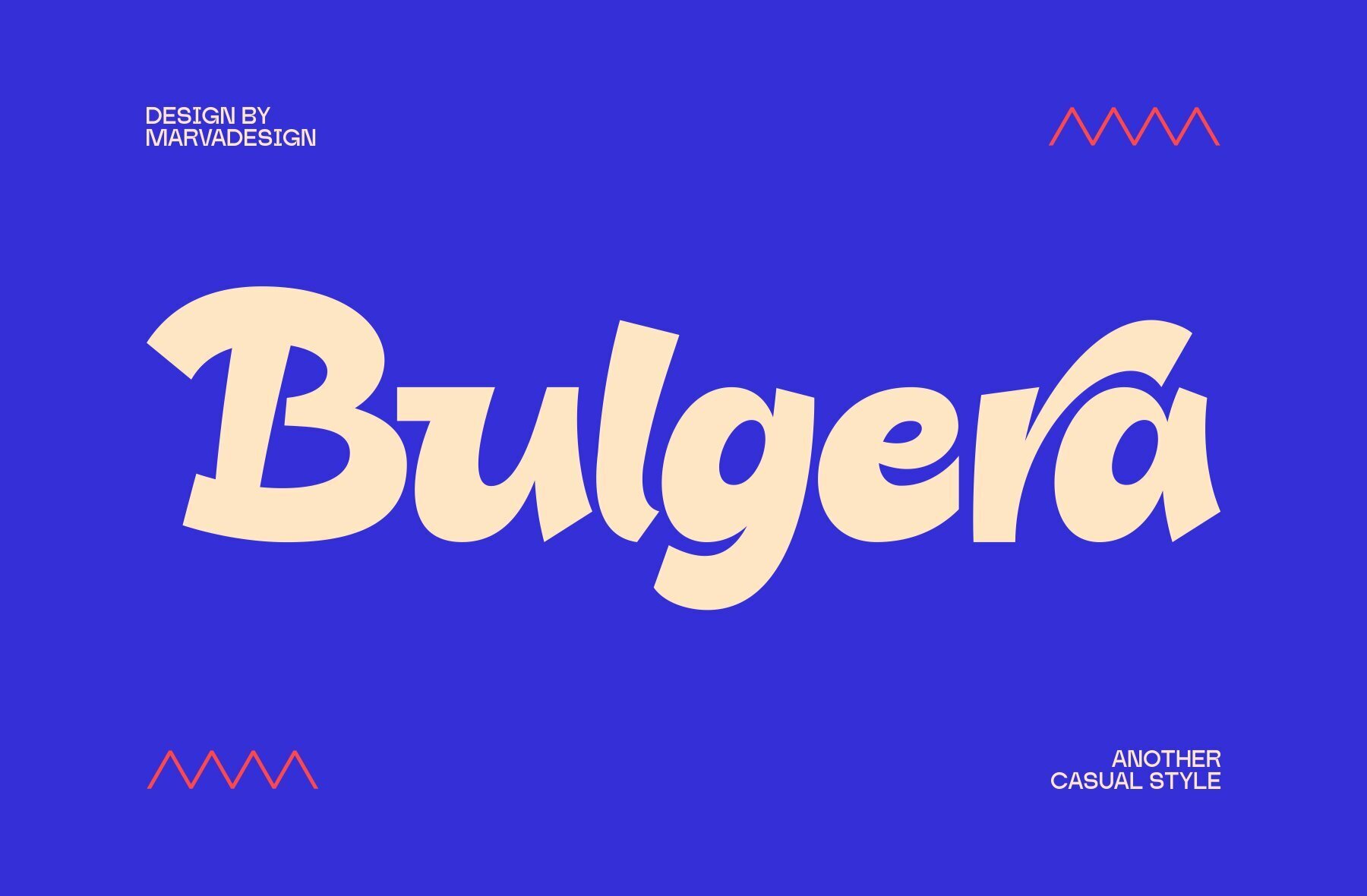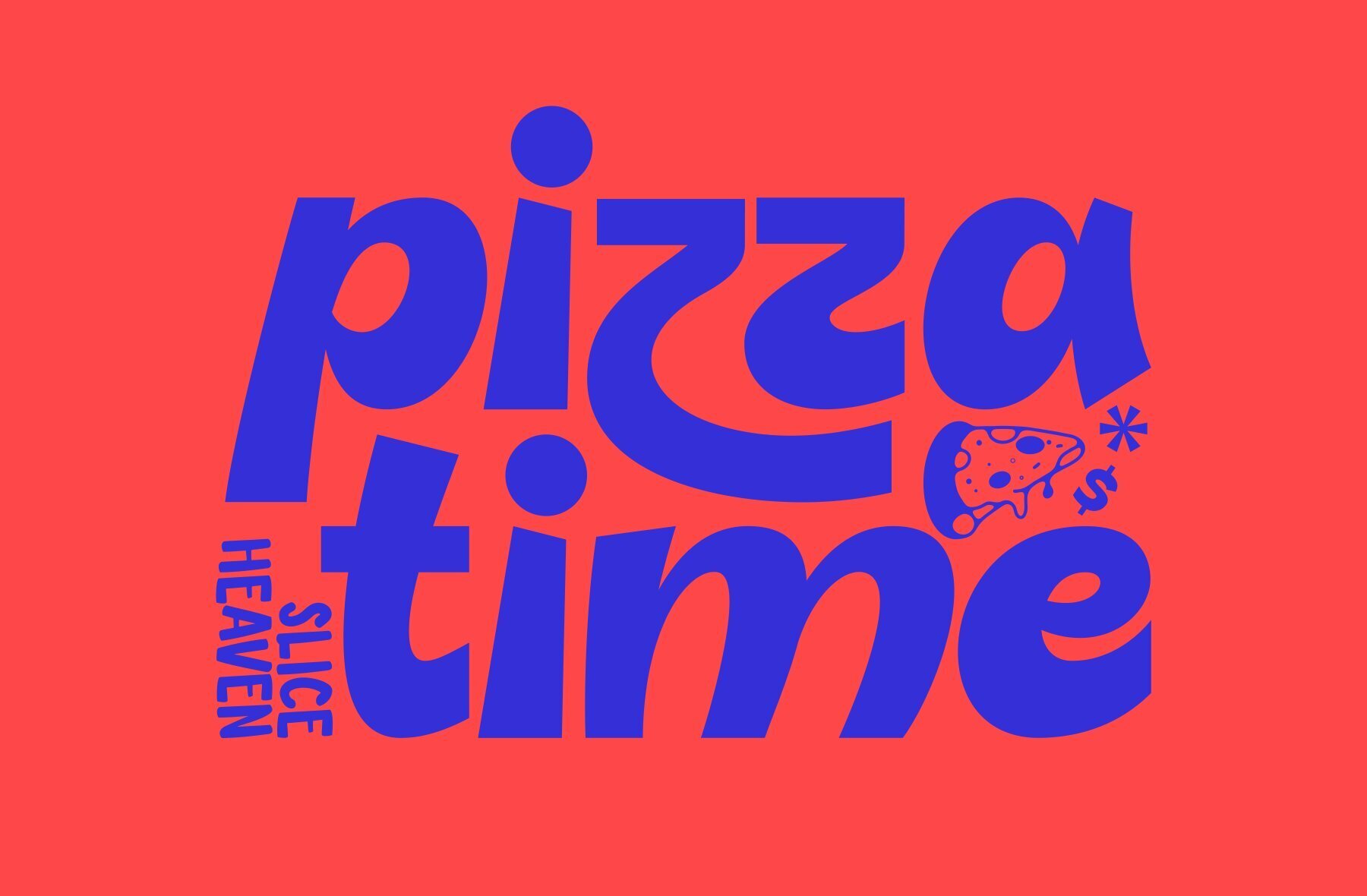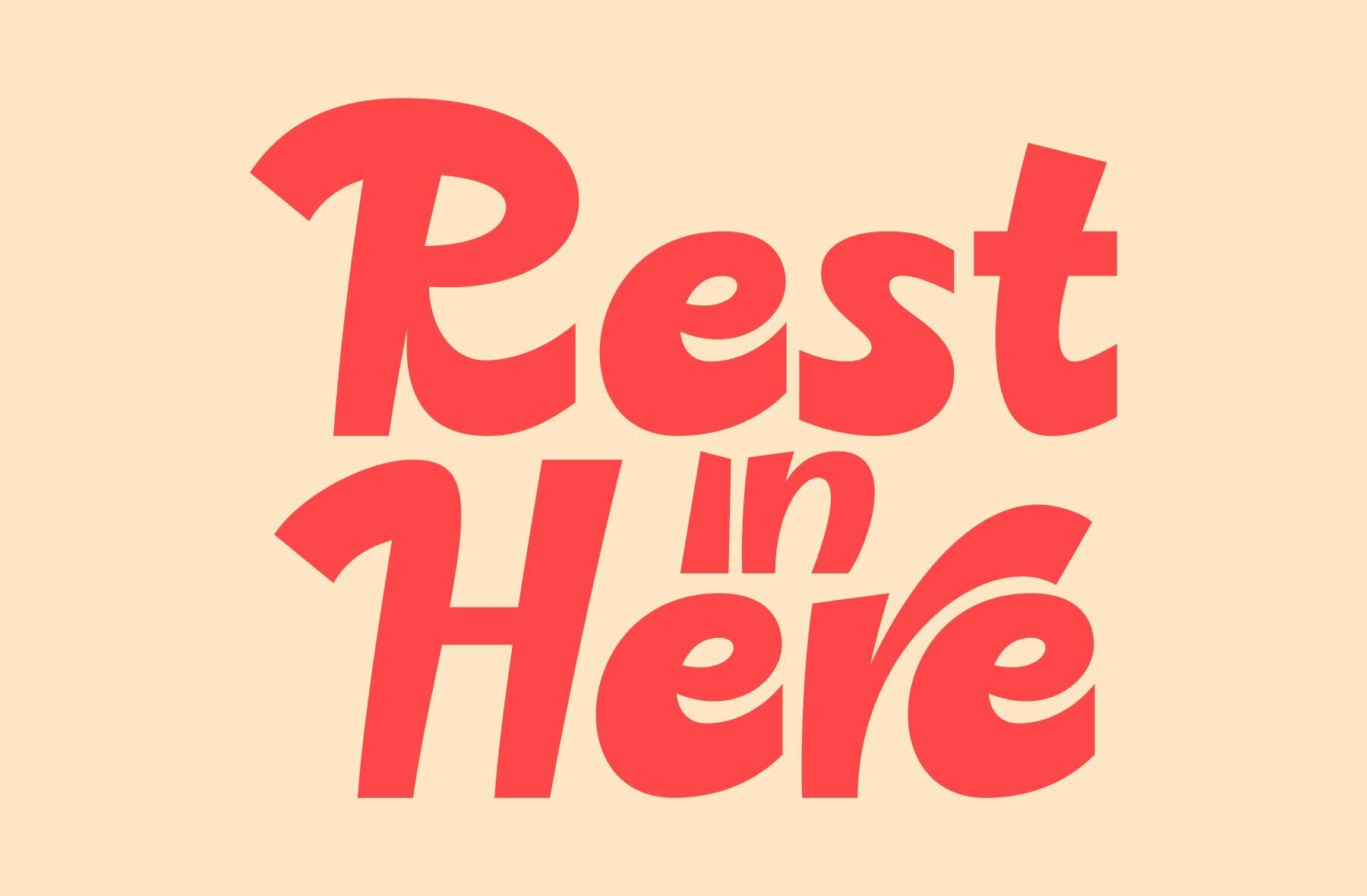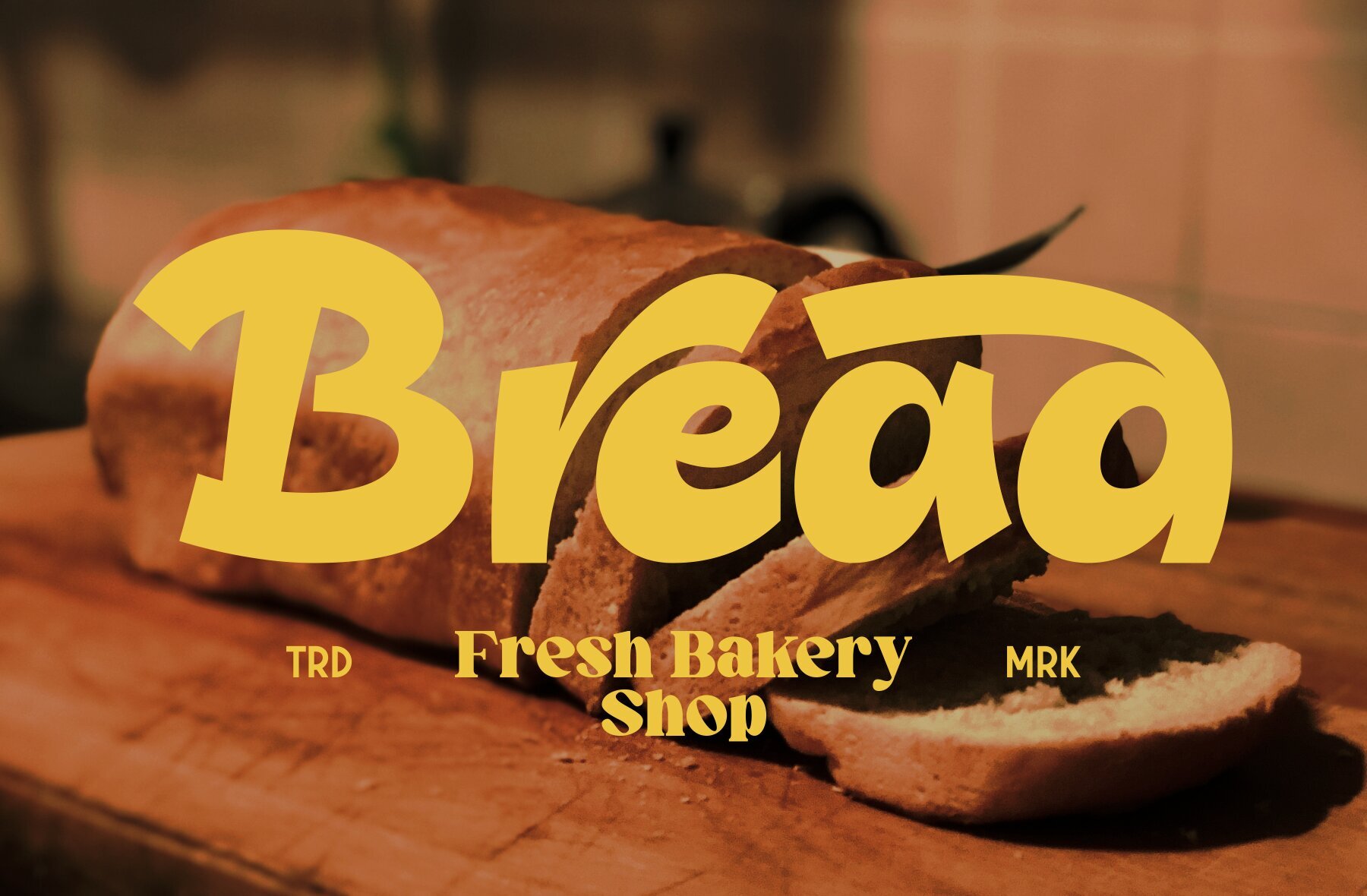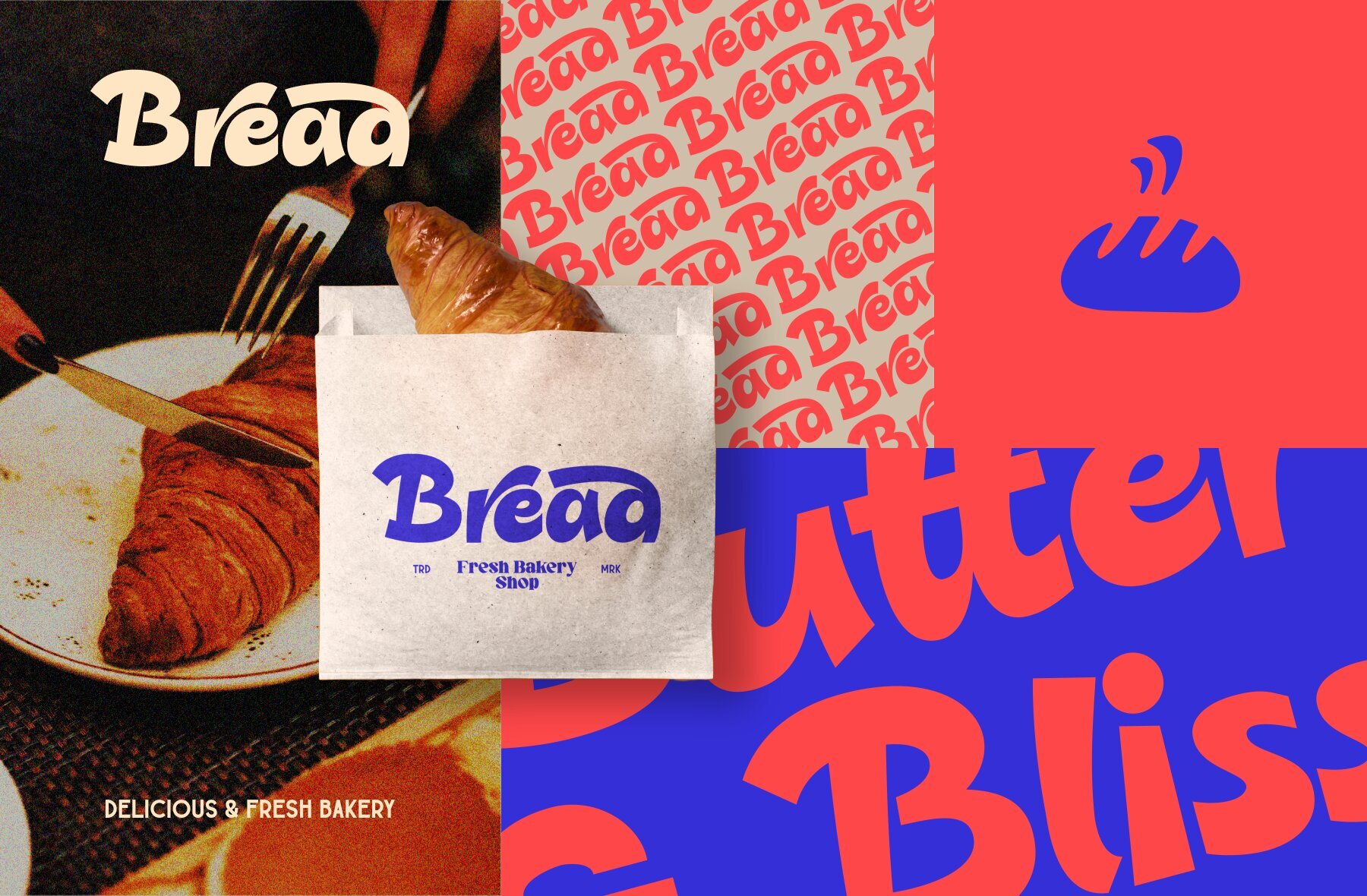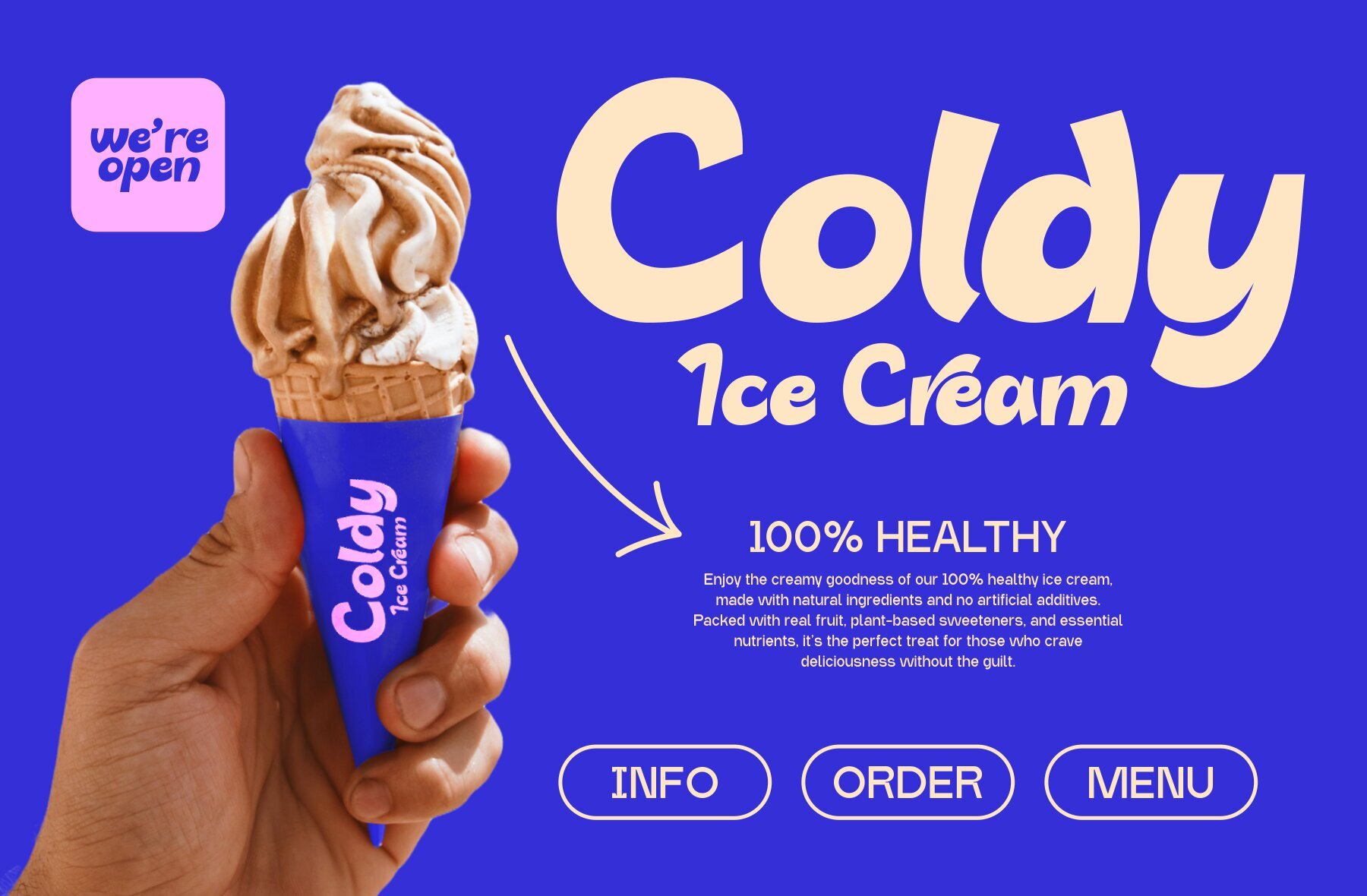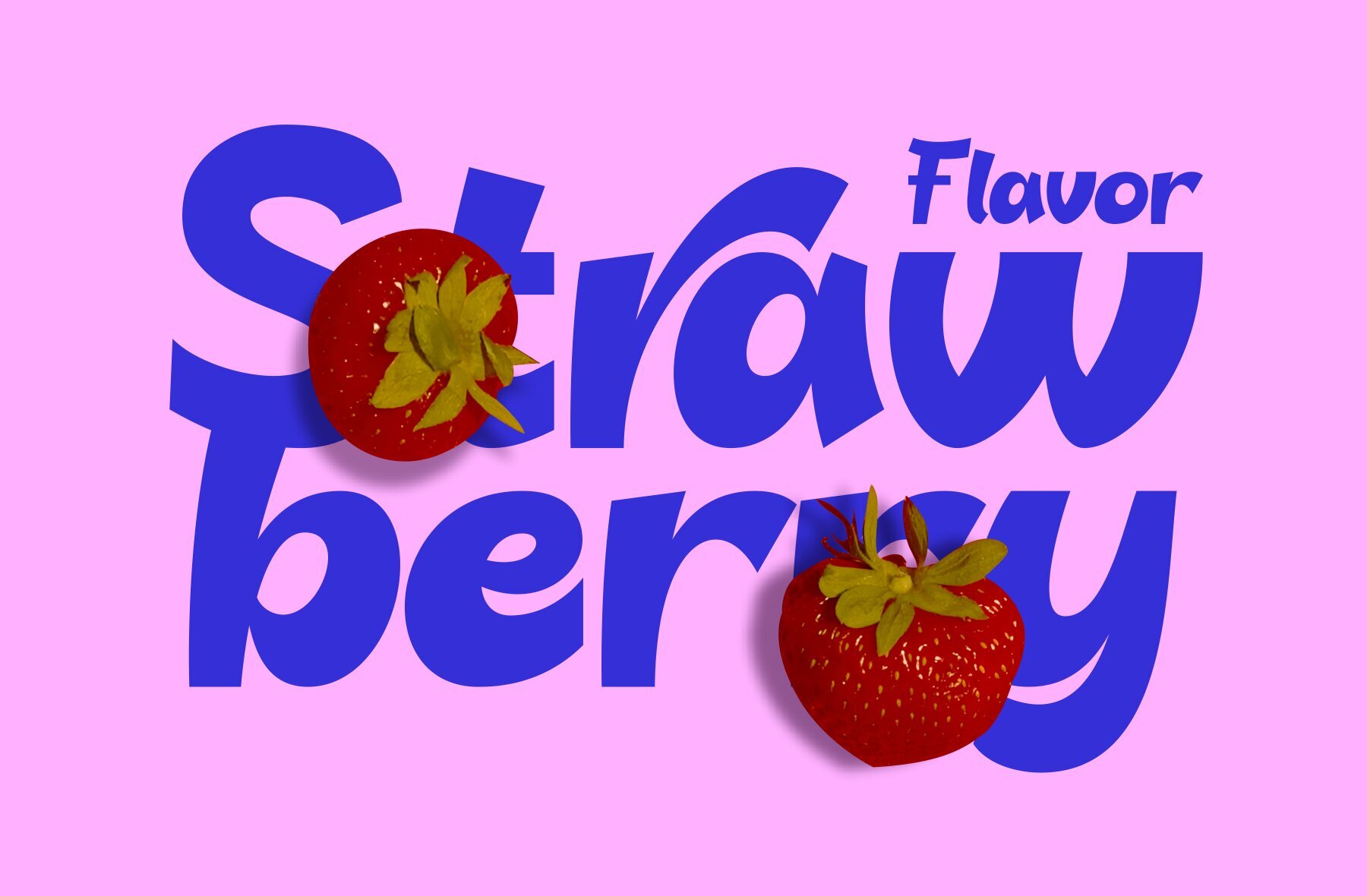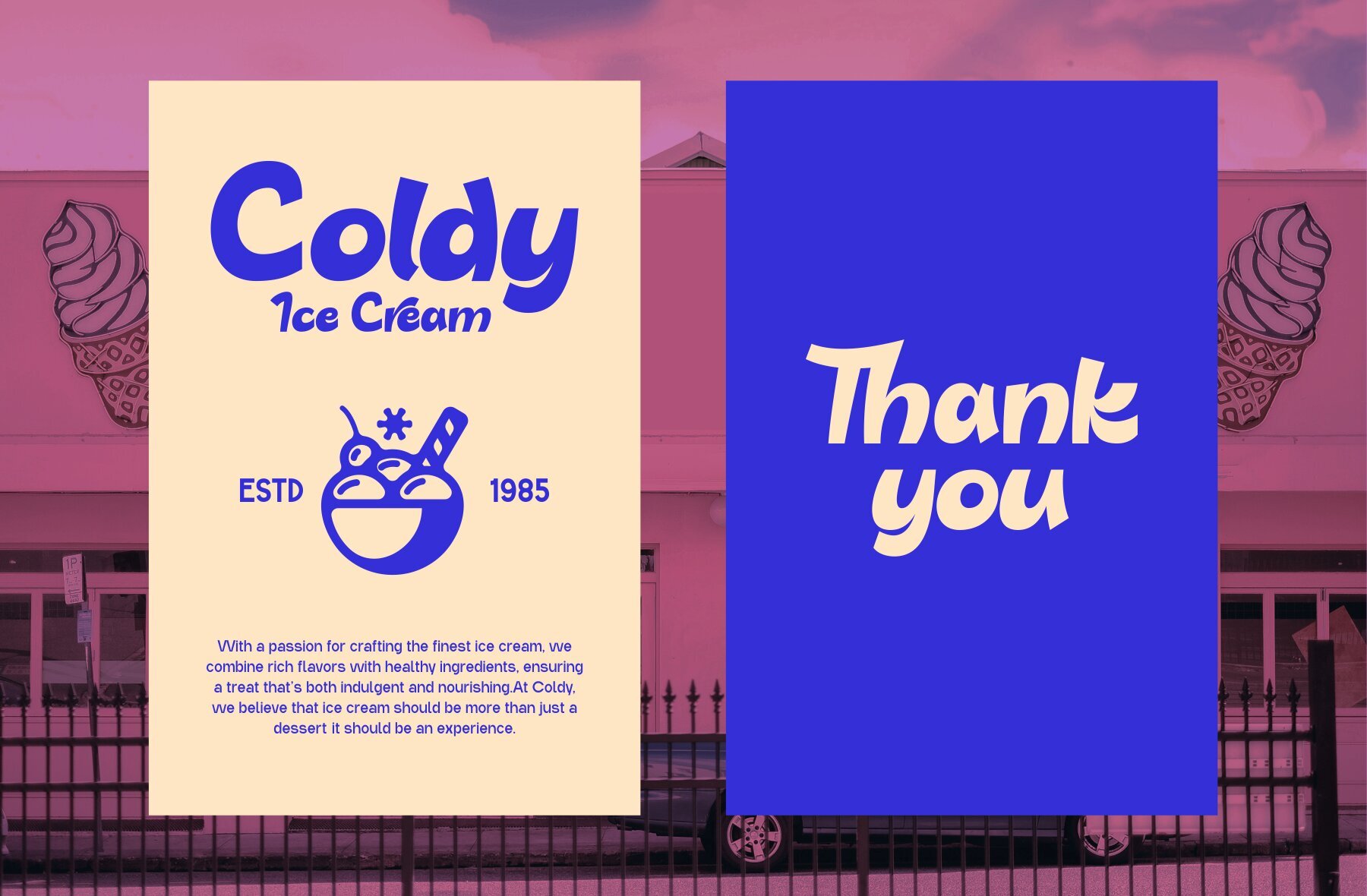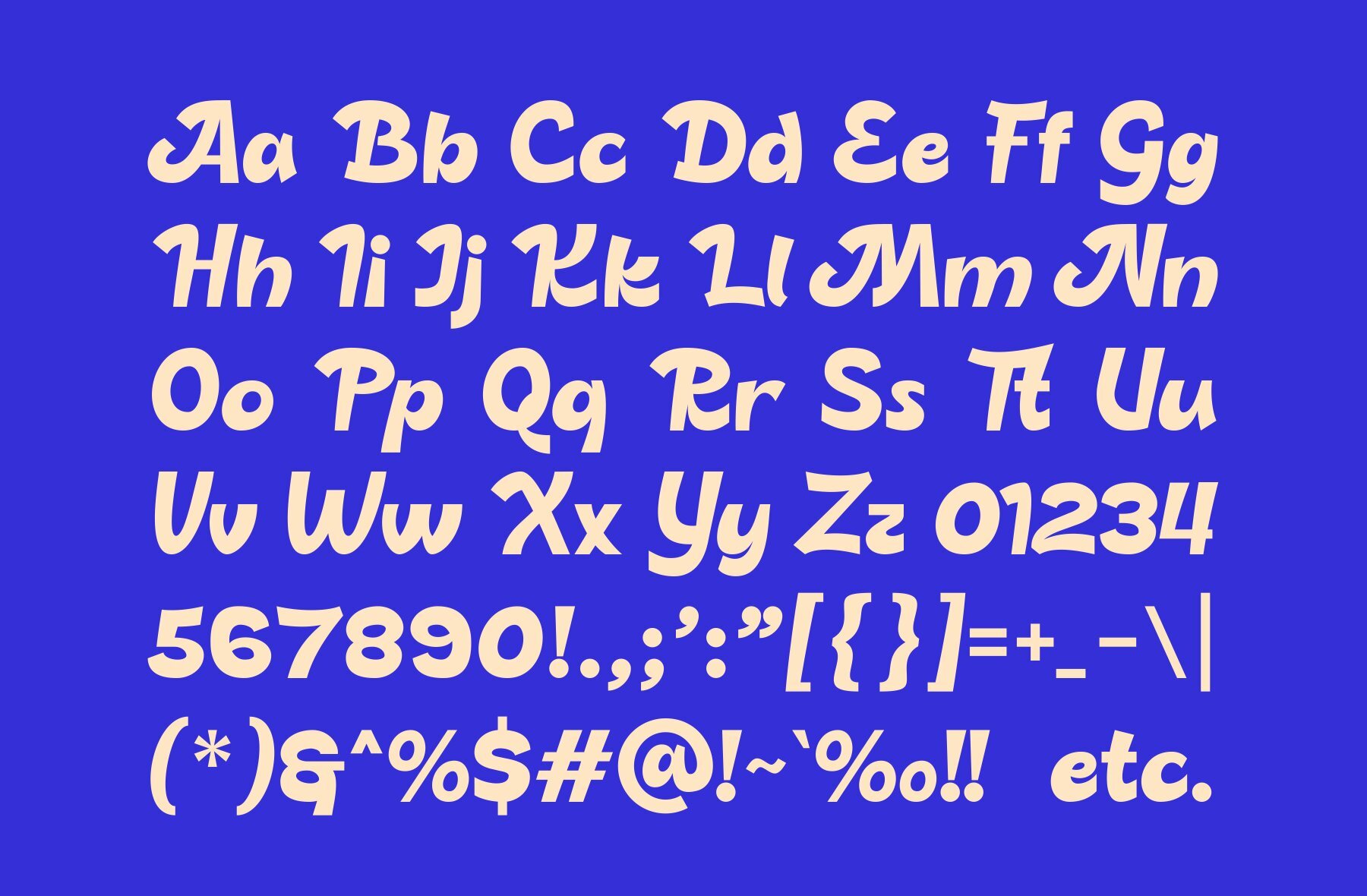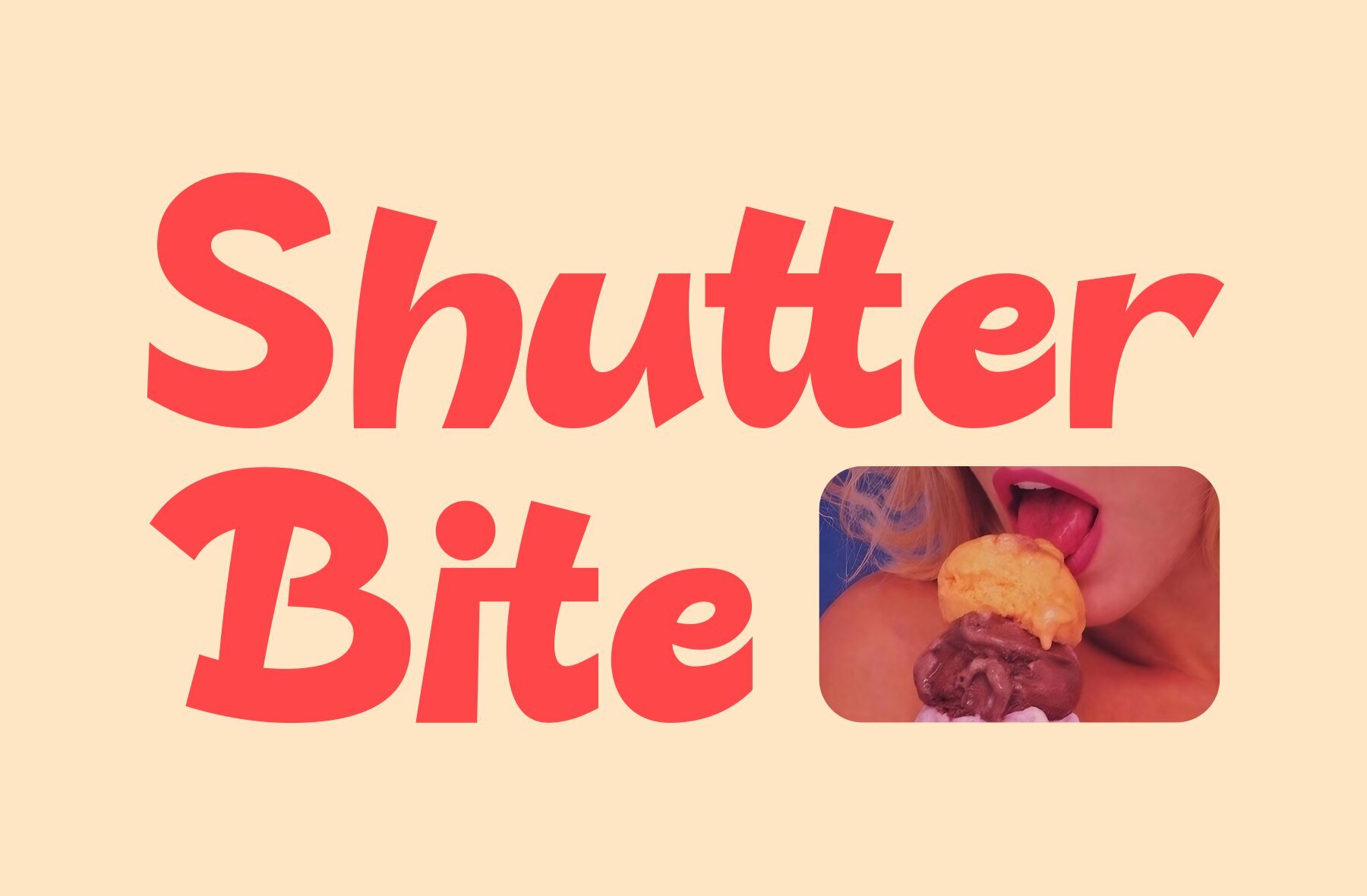
Bulgera Font
Bulgera
Bulgera is a dynamic display typeface that embodies boldness and playfulness. The design features smooth curves and exaggerated letterforms that slant slightly for a casual yet modern aesthetic. With thick strokes and rounded edges, Bulgera evokes warmth and friendliness, making it suitable for branding, advertising, and creative design projects. The Bulgera typeface incorporates a contemporary style with hints of retro inspiration, reminiscent of vintage signage or hand-painted lettering. Its versatility makes it ideal for various applications, including: Color combinations in Bulgera further enhance contrast and readability while maintaining its fun and engaging appearance.Bulgera Typeface: Bold and Playful Display Style